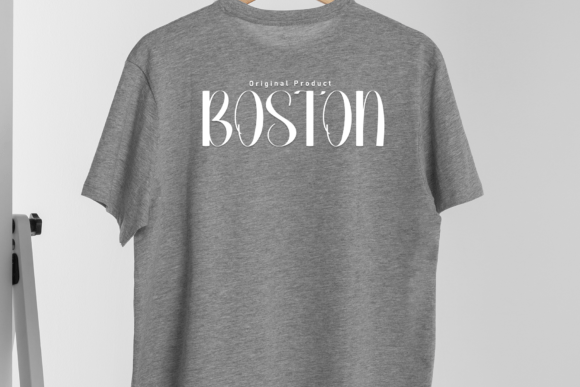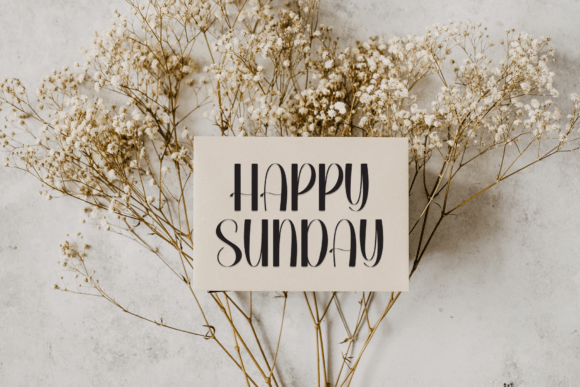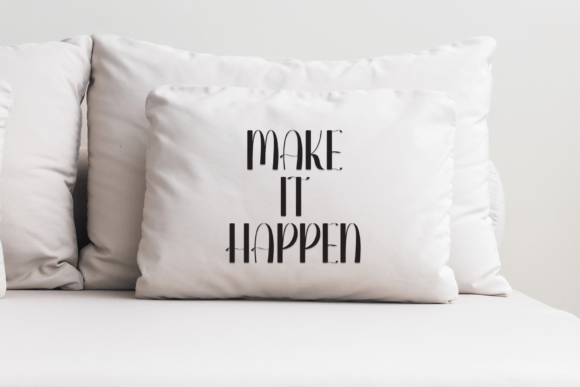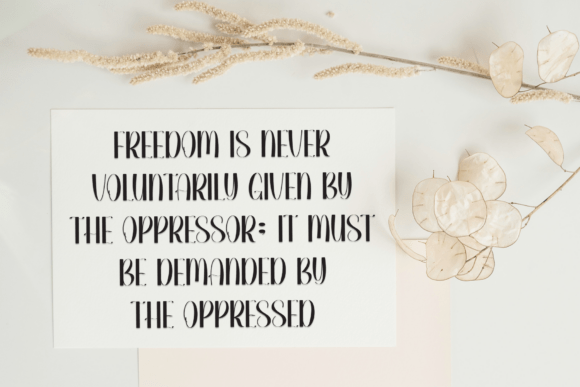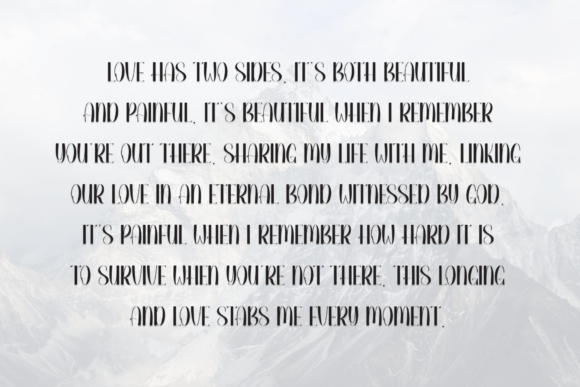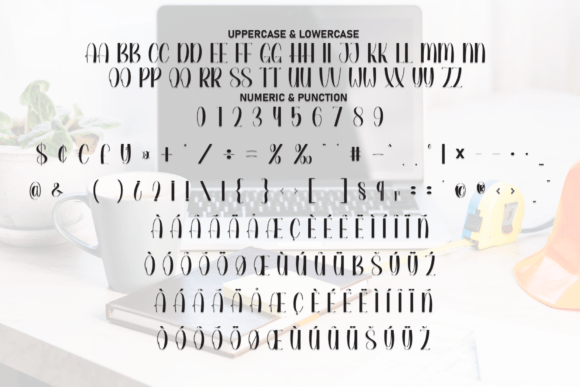
Introducing the Black Planner Font: A Whimsical Handwritten Delight
Have you ever been working on a design project, pouring your heart and soul into it, only to hit a roadblock when it comes to choosing the perfect font? I certainly have! Recently, I was tasked with creating a warm and inviting wedding invitation for a dear friend, and I knew I needed something special. That’s when I stumbled upon the Black Planner Font, a delightful handwritten font that has become my new go-to for adding a touch of whimsy and charm to any design.
So, what makes the Black Planner Font so special? Here are a few things that I absolutely adore:
• ✨ Sweet and charming personality: This font has a light-hearted, merry vibe that’s perfect for crafting warm and engaging designs.
• ✅ Highly legible: Despite its whimsical nature, the Black Planner Font is incredibly easy to read, making it suitable for both headings and body text.
• 💕 Emotional connection: The font’s carefully crafted characters seem to radiate joy and friendliness, helping to create a strong emotional connection with your audience.
• 🤔 Limited use of OpenType features: While the Black Planner Font does offer some basic OpenType features, it’s not as extensive as some other fonts on the market.
• ⚠️ Occasional kerning issues: As with any font, there may be some minor kerning issues, particularly when using certain character combinations.
The Story Behind the Black Planner Font
While the true origins of the Black Planner Font are unclear, it’s easy to imagine that it was created with love and care by a designer who wanted to bring a little joy and whimsy into the world. Perhaps they were inspired by the charming handwriting of a loved one or the sweet illustrations of a favorite children’s book. Whatever the inspiration, the result is a font that’s sure to delight and inspire.
Is the Black Planner Font suitable for body text? While the Black Planner Font is primarily designed for display use, it can be used for body text in certain contexts, such as in children’s books or other creative projects.